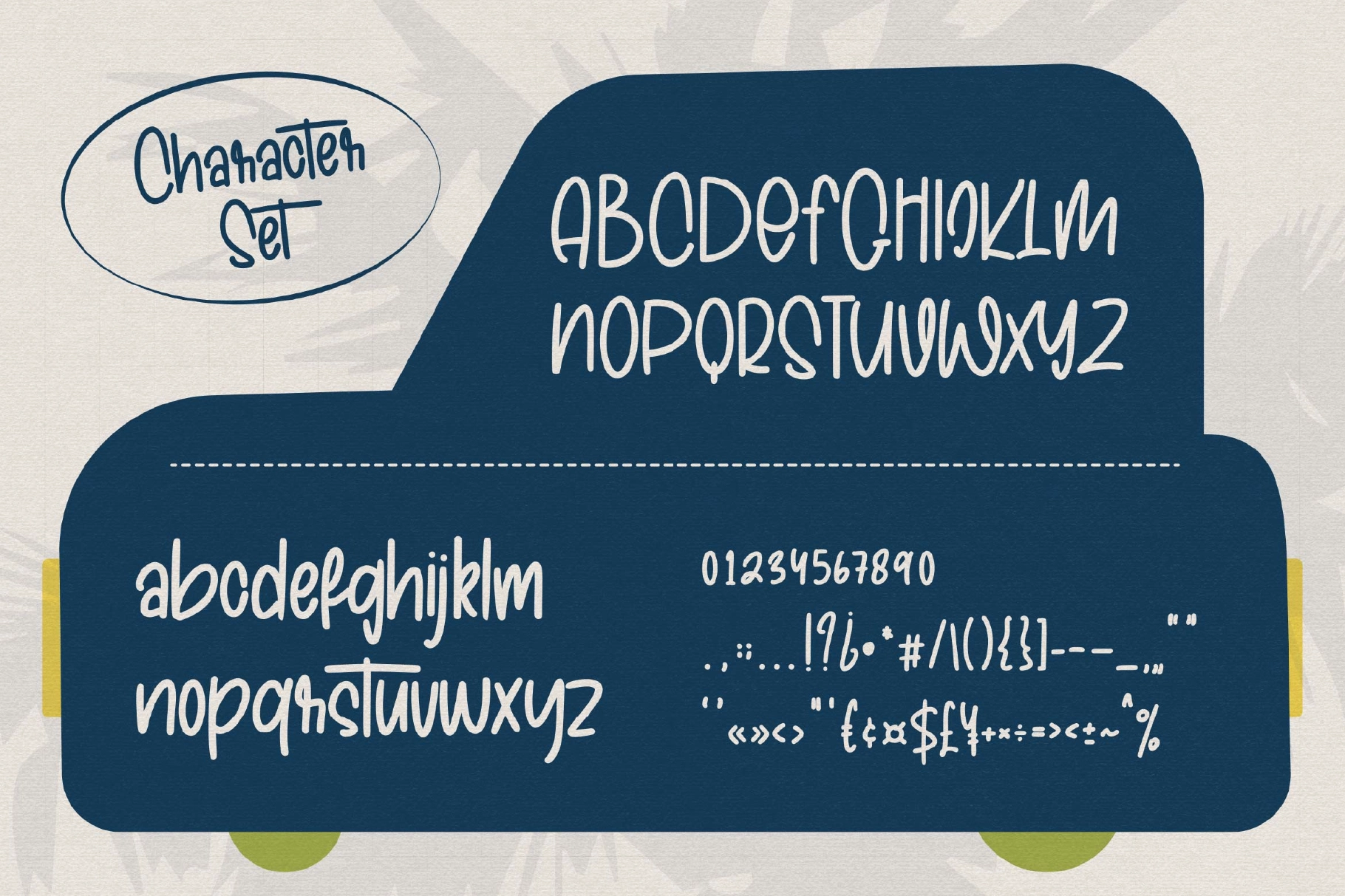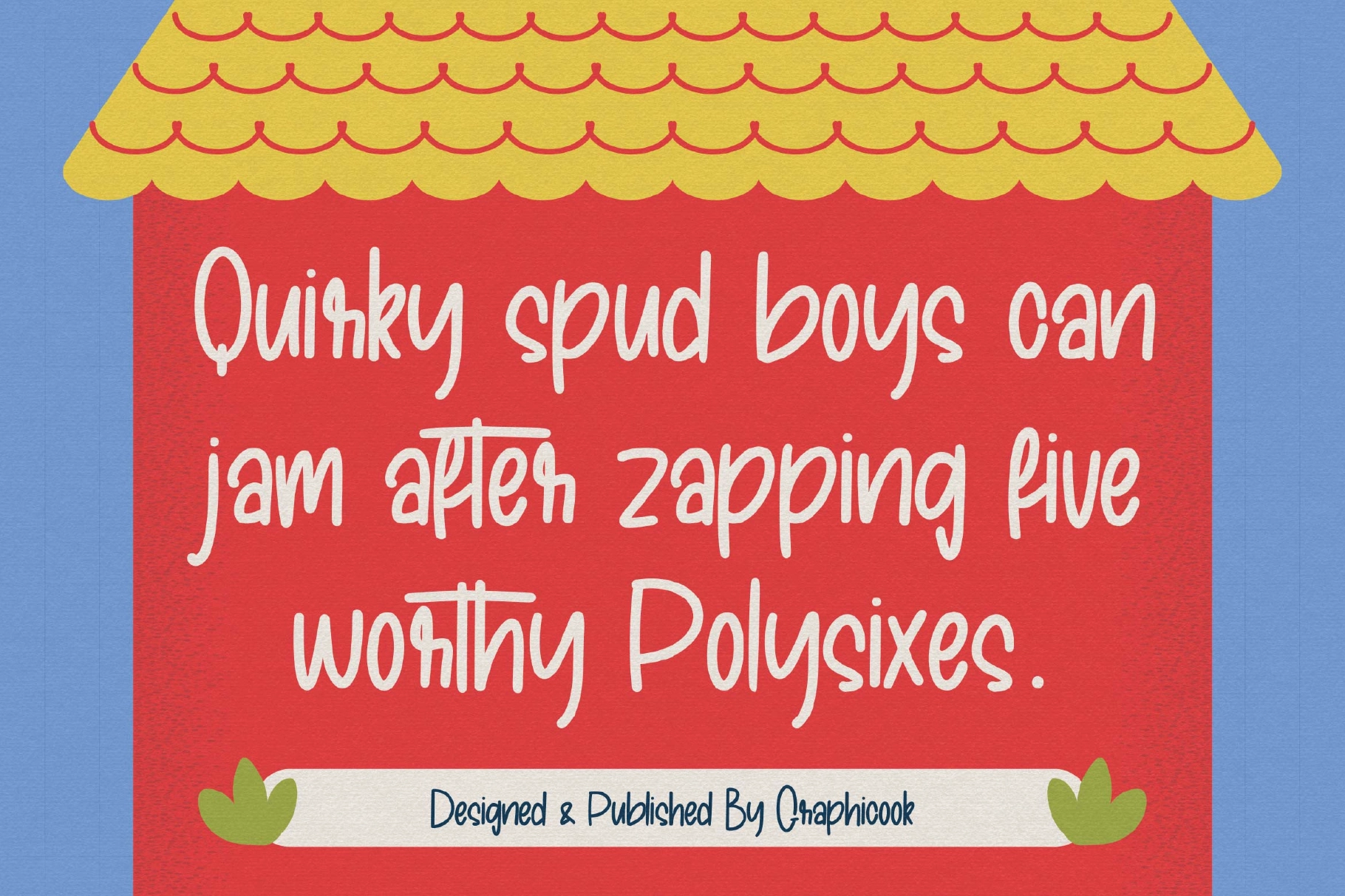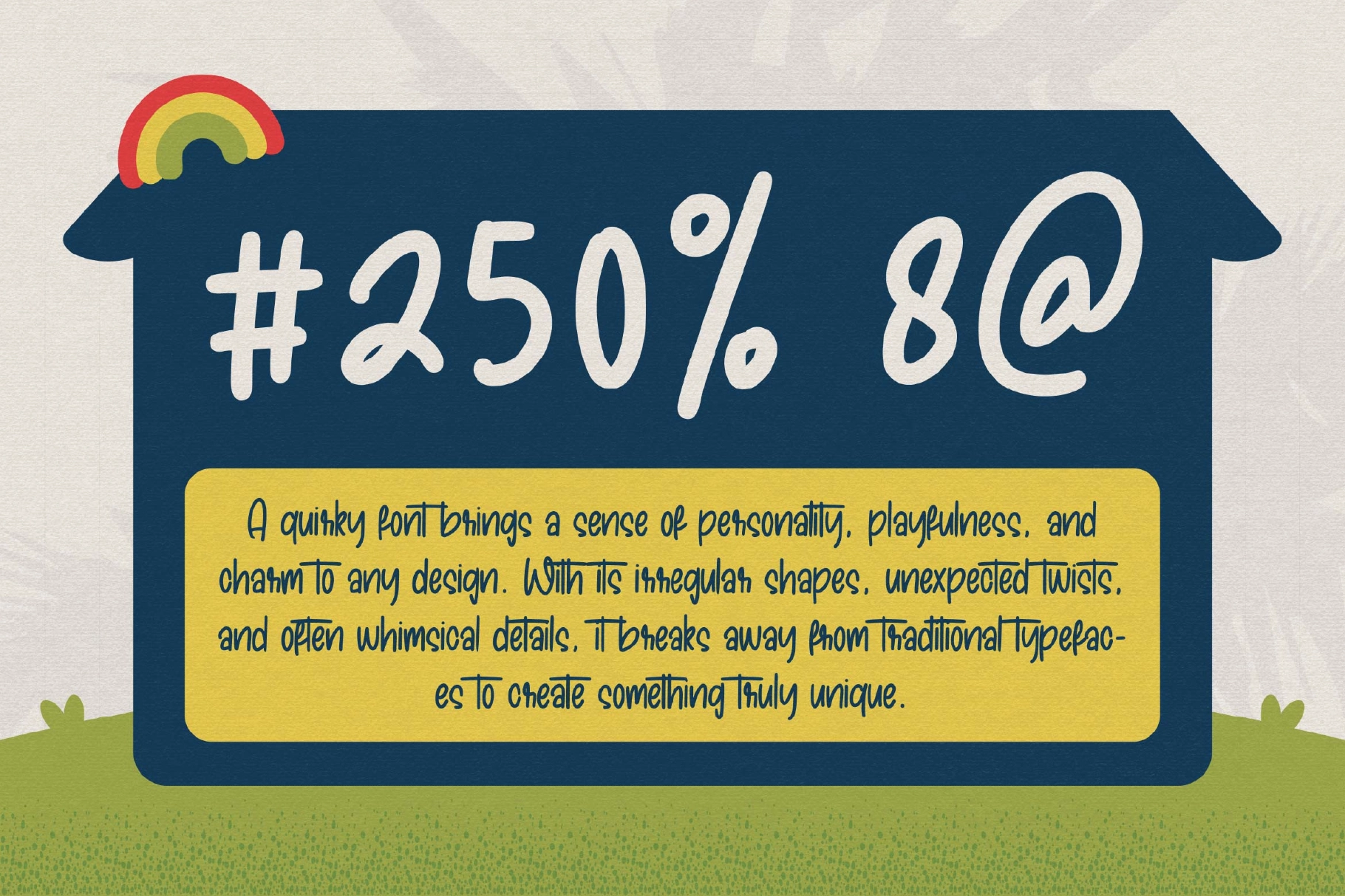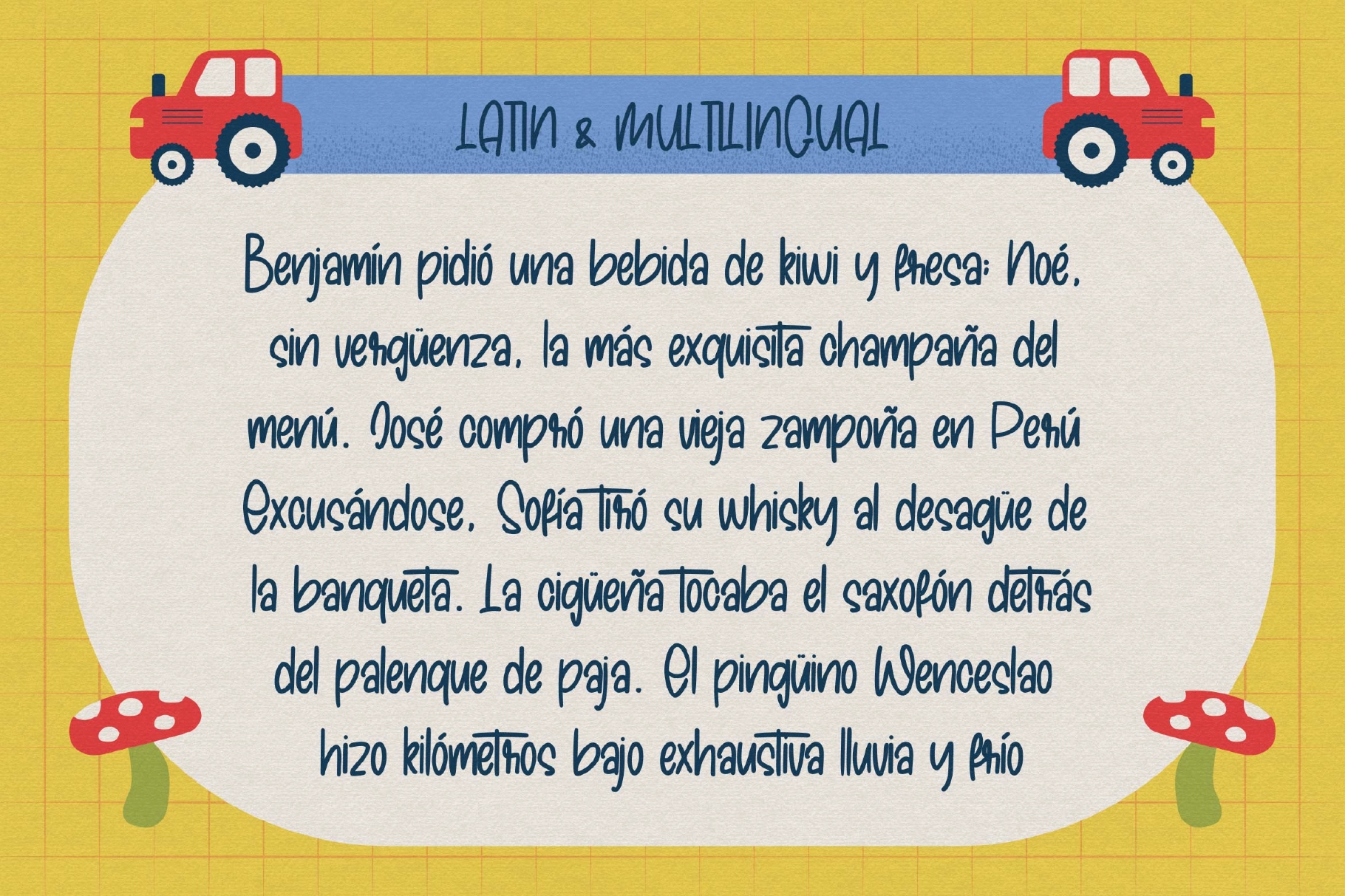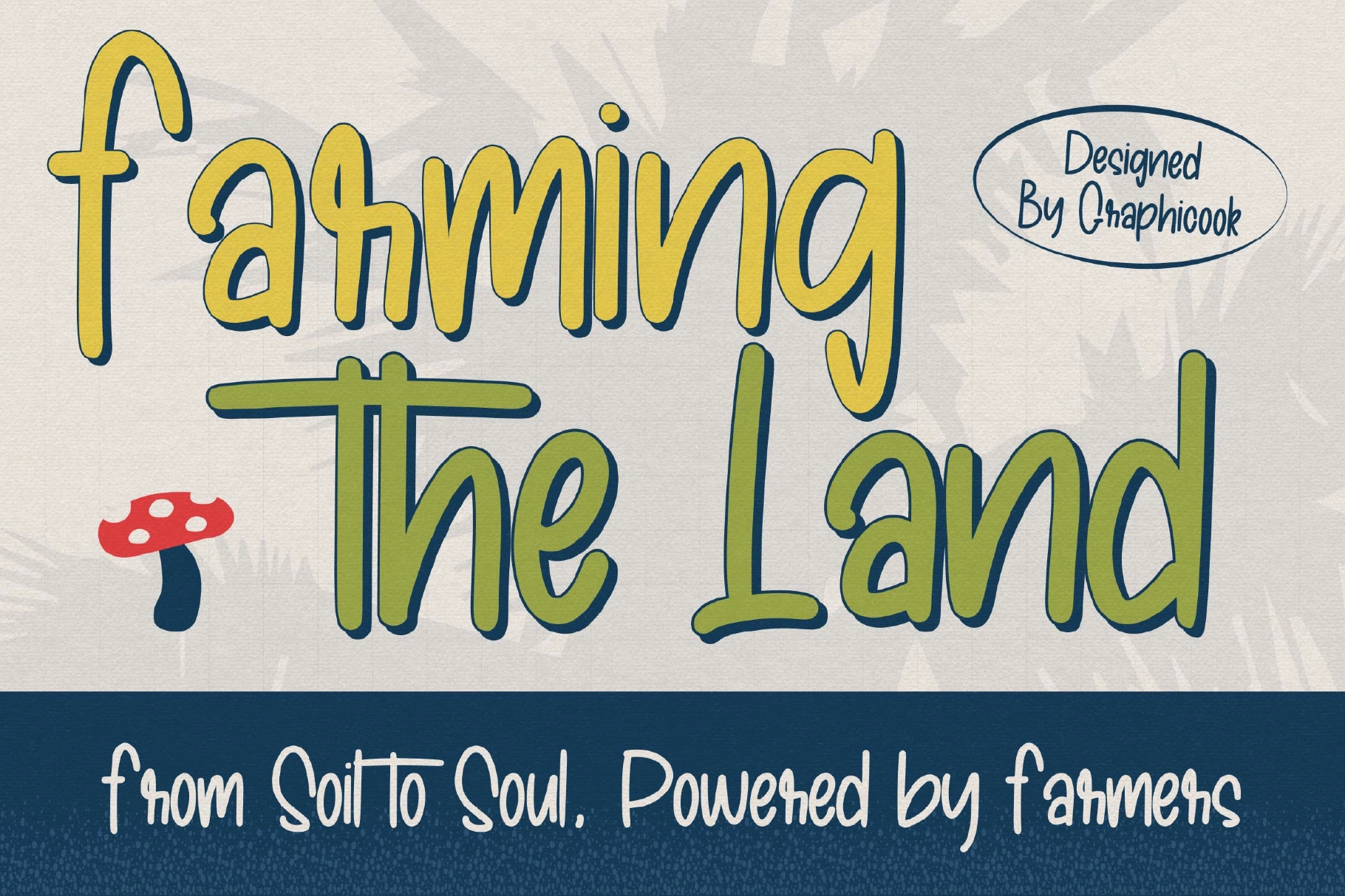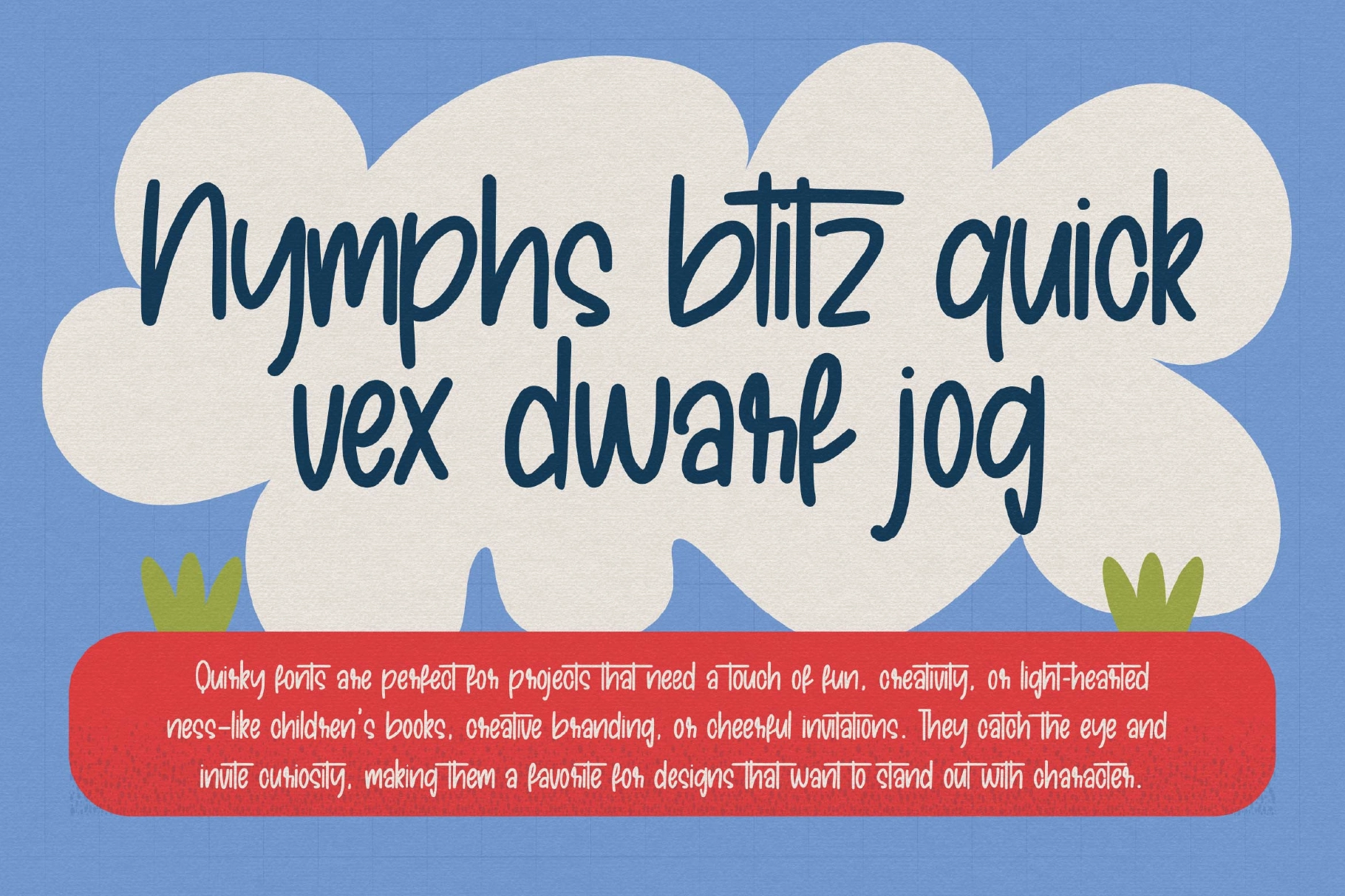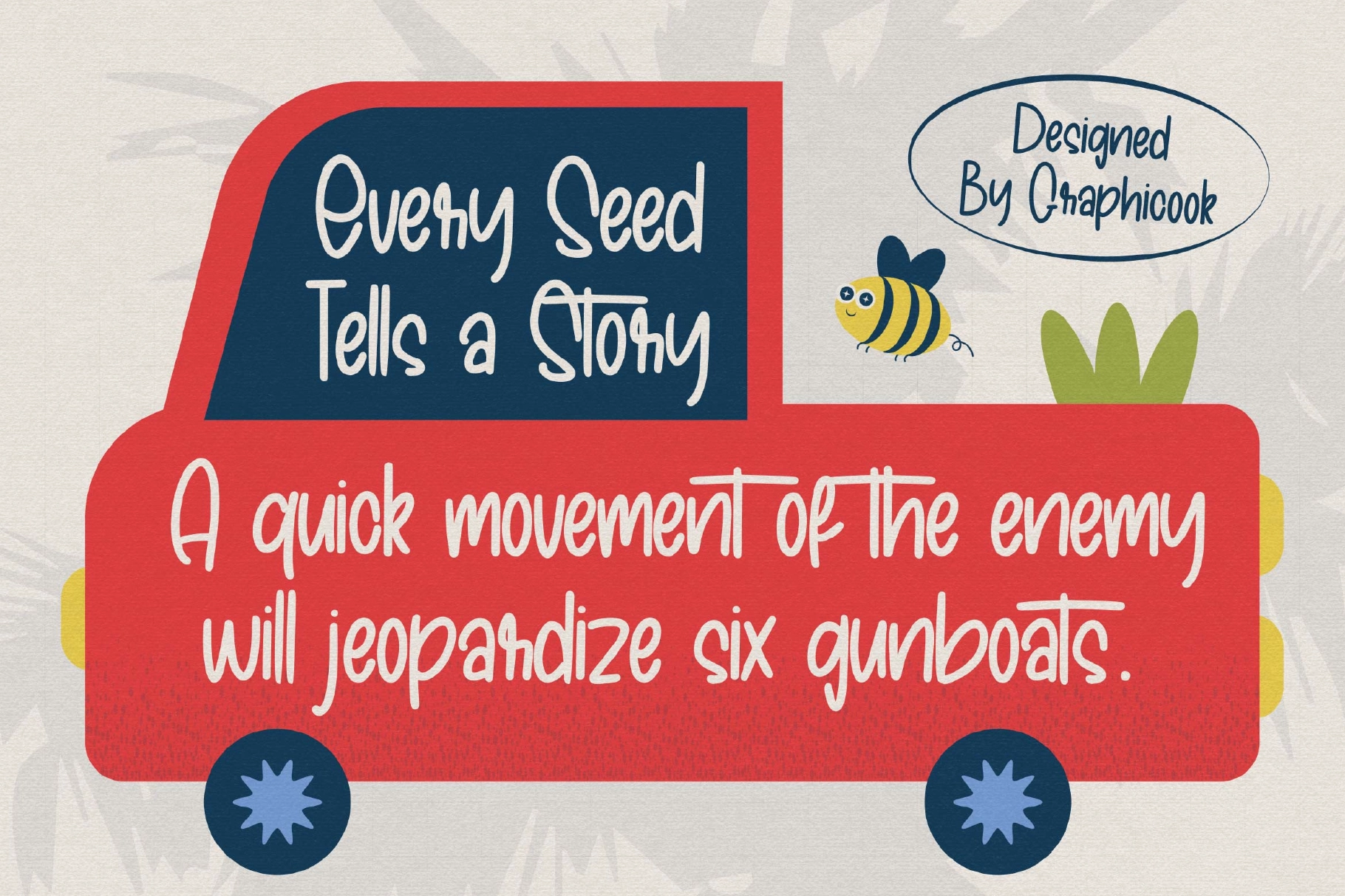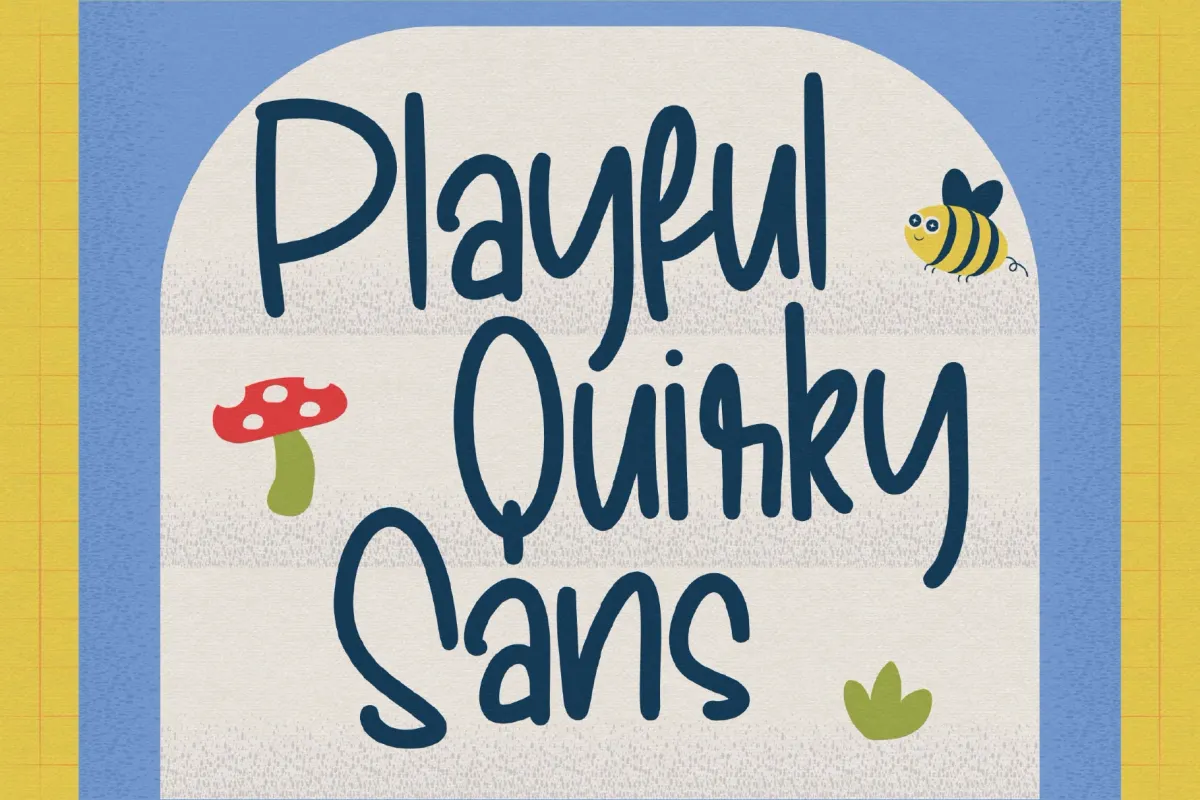
Playglyn Font
Playglyn
Playgyn is a hand-drawn font with unique, asymmetrical letterforms that create a fun, friendly, and childlike feel. Great for designs aimed at children.